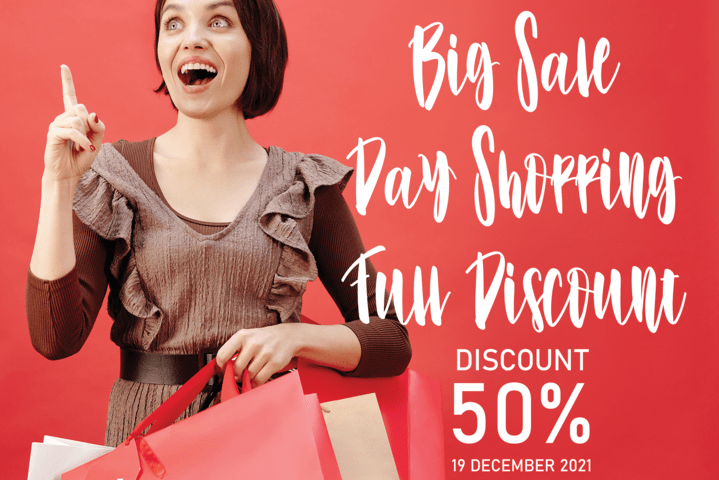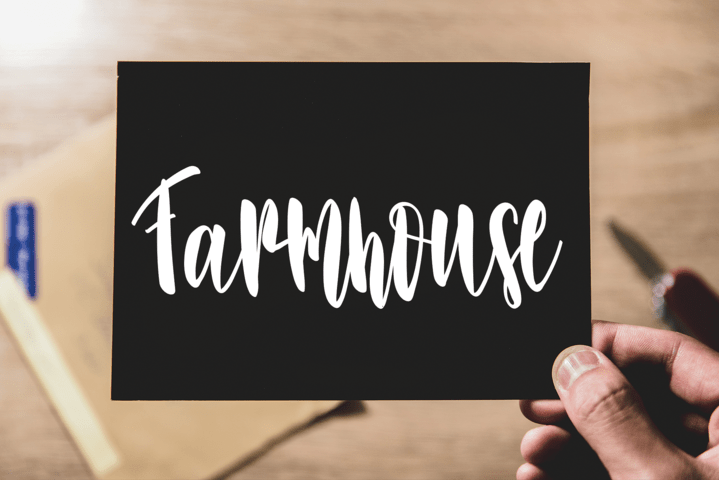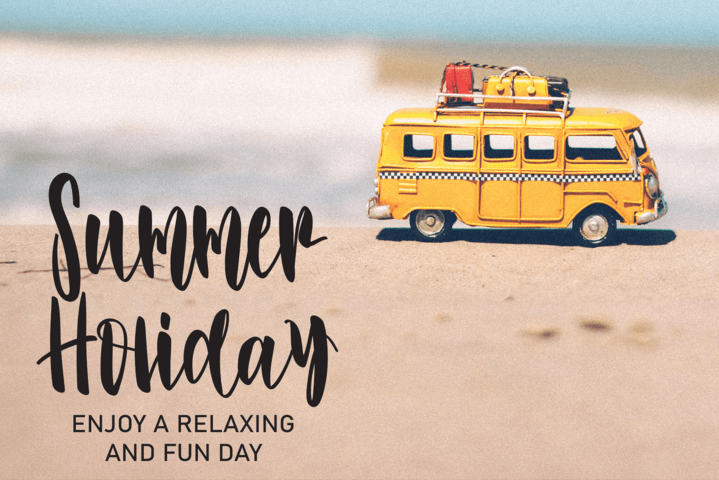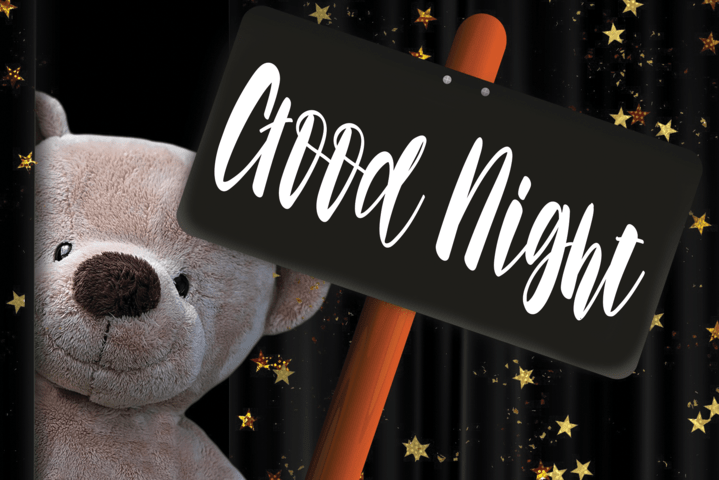
Rainbowcake Font
Rainbowcake Script Font
It’s a creative handwriting font perfect for signs, invitations, cards, quotes, fashion, magazines, business cards, branding, t-shirt designs, and more!